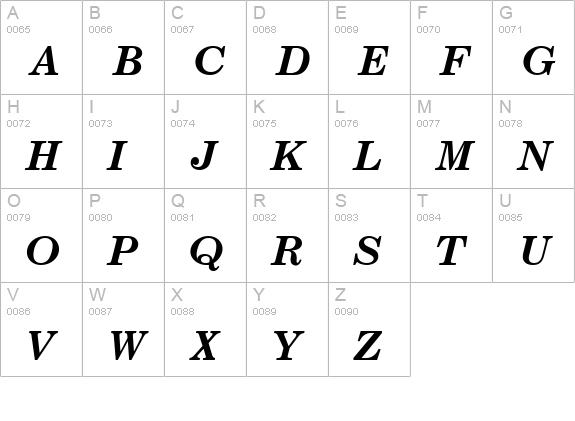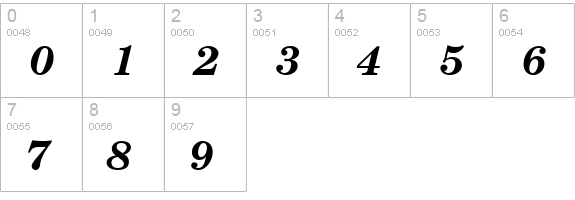
Century Schoolbook SSi Bold Italic Font Details
Century Schoolbook SSi Bold Italic is a strong, high-contrast, italic variant in the Century typeface family \xE2\x80\x94 well suited to headlines, attention-grabbing titles, and strong calls-to-action.
Century Schoolbook SSi Bold Italic font is a stunning and elegant typeface that exudes sophistication and professionalism. Its bold italic style adds a touch of flair and personality to any design project. With its timeless appeal and classic charm, this font is perfect for a wide range of applications, from branding to editorial design. What makes Century Schoolbook SSi Bold Italic font even more appealing is that it is available for free download at FontsMarket.com. This means you can easily access and use this high-quality font in your projects without any hassle or cost. Don't miss out on the opportunity to enhance your designs with the beauty and versatility of Century Schoolbook SSi Bold Italic font - download it for free today!